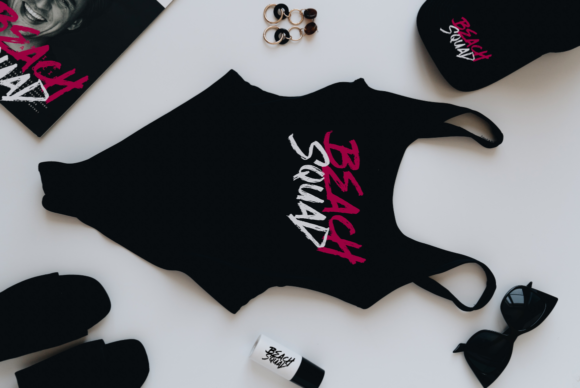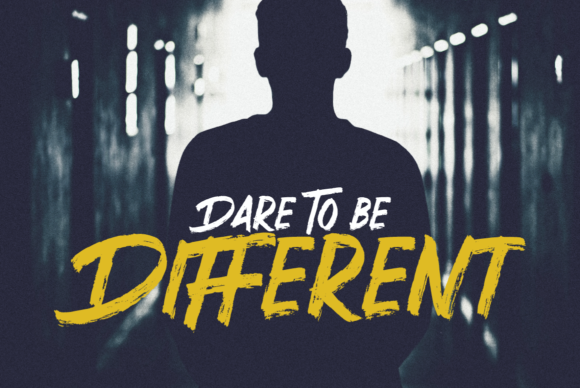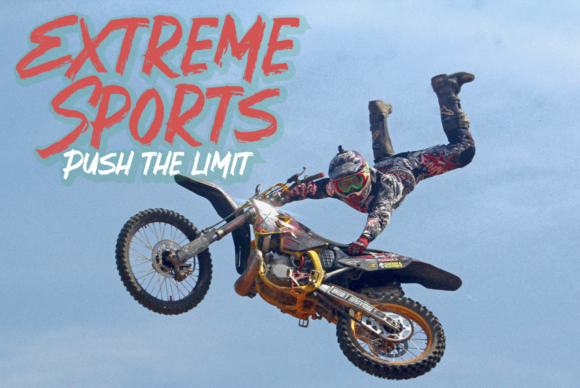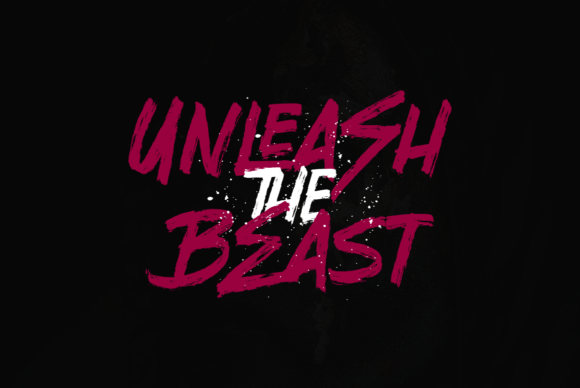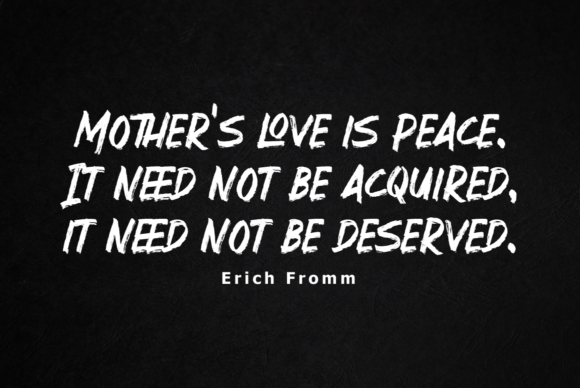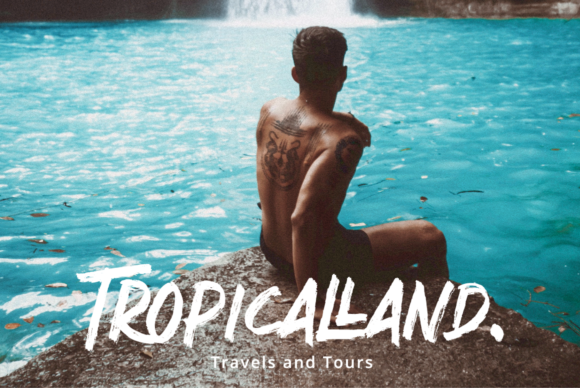
The Perfect Stroke of Genius
Have you ever been in the midst of a creative project, struggling to find the perfect font to bring your vision to life? You’ve poured your heart and soul into it, but something’s missing – that extra oomph that takes your design from good to great. Well, we’ve got the solution for you.
Introducing the Diversal Brush Font, a bold display font that’s sure to make your creative ideas stand out in a crowd. With its dramatic vibe, this font is perfect for adding a touch of elegance and sophistication to your designs. Whether you’re a seasoned designer or just starting out, the Diversal Brush Font is a valuable addition to your toolkit.
Imagine being able to add a bold, eye-catching element to your designs with just a few clicks. That’s the power of the Diversal Brush Font – and it’s waiting for you to unleash its full potential.
Diversal Brush Font Key Features
- Unique Brush Stroke Effect: Diversal Brush Font features a unique brush stroke effect that gives it a hand-painted look, perfect for creative and artistic designs.
- Multi-Resolution Support: Designed to work well at various resolutions, from 72 dpi to 300 dpi, making it suitable for both web and print designs.
- Large Character Set: Includes a wide range of characters, including Latin, Cyrillic, and Greek alphabets, as well as punctuation and special characters.
- Customizable: Diversal Brush Font is highly customizable, allowing designers to adjust the stroke width, spacing, and other parameters to suit their design needs.
- Perfect for Creative Projects: This font is ideal for creative projects, such as logos, branding, packaging, and advertising, where a unique and artistic look is required.
Diversal Brush Font Review
When I first laid eyes on the Diversal Brush Font, I was immediately drawn in by its quirky charm. The font’s unique blend of handwritten and digital elements has a certain je ne sais quoi that sets it apart from more traditional fonts. ✨ I appreciate how the font’s imperfections and subtle texture add a touch of organic feel to any design.
- Customizability: The Diversal Brush Font comes with a range of customization options, allowing designers to tweak the font’s appearance to suit their specific needs. ✨
- Unique style: The font’s blend of handwritten and digital elements makes it a great choice for designers looking to add some personality to their work. ✨
- Scalability: The font looks great at a range of sizes, from small text to large headings. ✨
However, I do have a few criticisms. ⚠️ The font’s customization options can be a bit overwhelming, and it’s easy to get lost in the various settings and controls. Additionally, the font may not be the best choice for projects that require a more formal or professional tone. ⚠️
Overall, I think the Diversal Brush Font is a great addition to any designer’s toolkit. While it may not be perfect, its unique style and customizability make it a versatile and fun font to work with. With a bit of practice and patience, designers can unlock the font’s full potential and create some truly stunning designs.
The Diversal Brush Font is ideal for:
- Creating unique and eye-catching titles or headings.
- Designing custom watermarks or textures.
- Adding a touch of personality to presentations or documents.